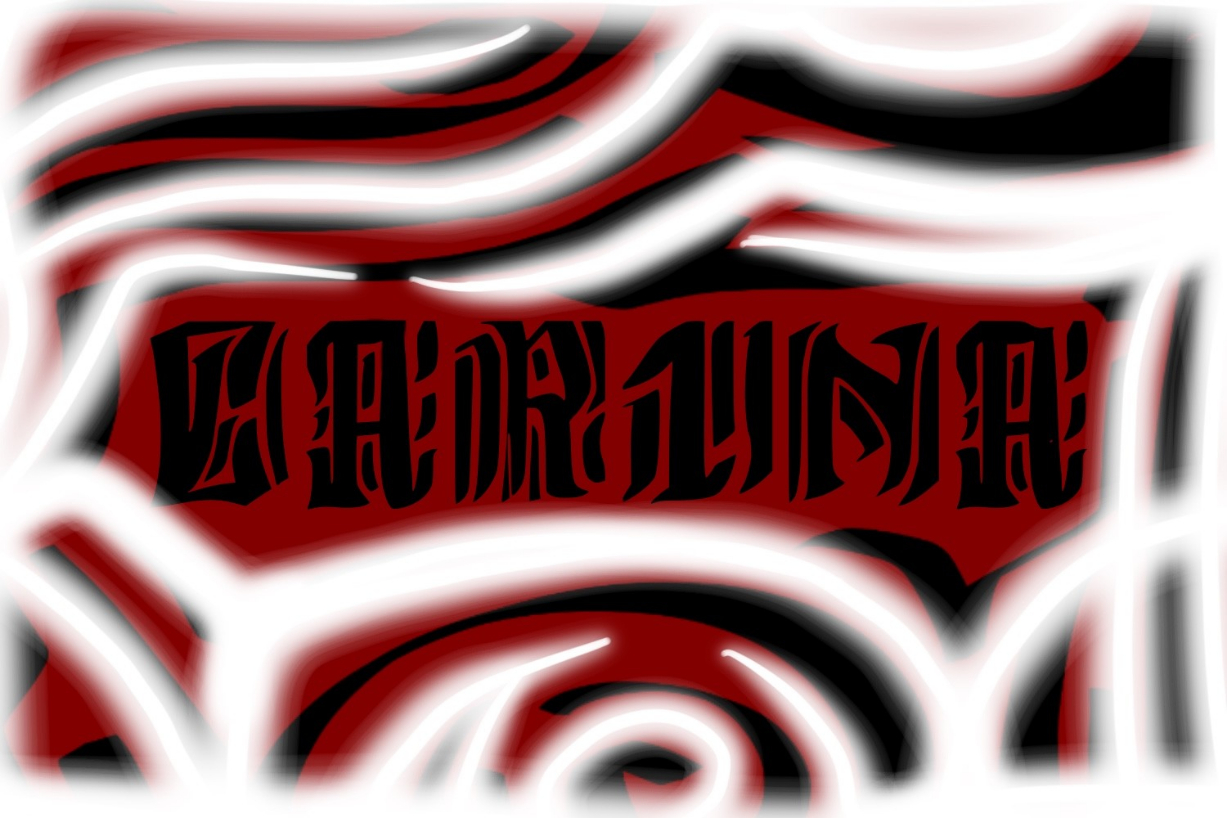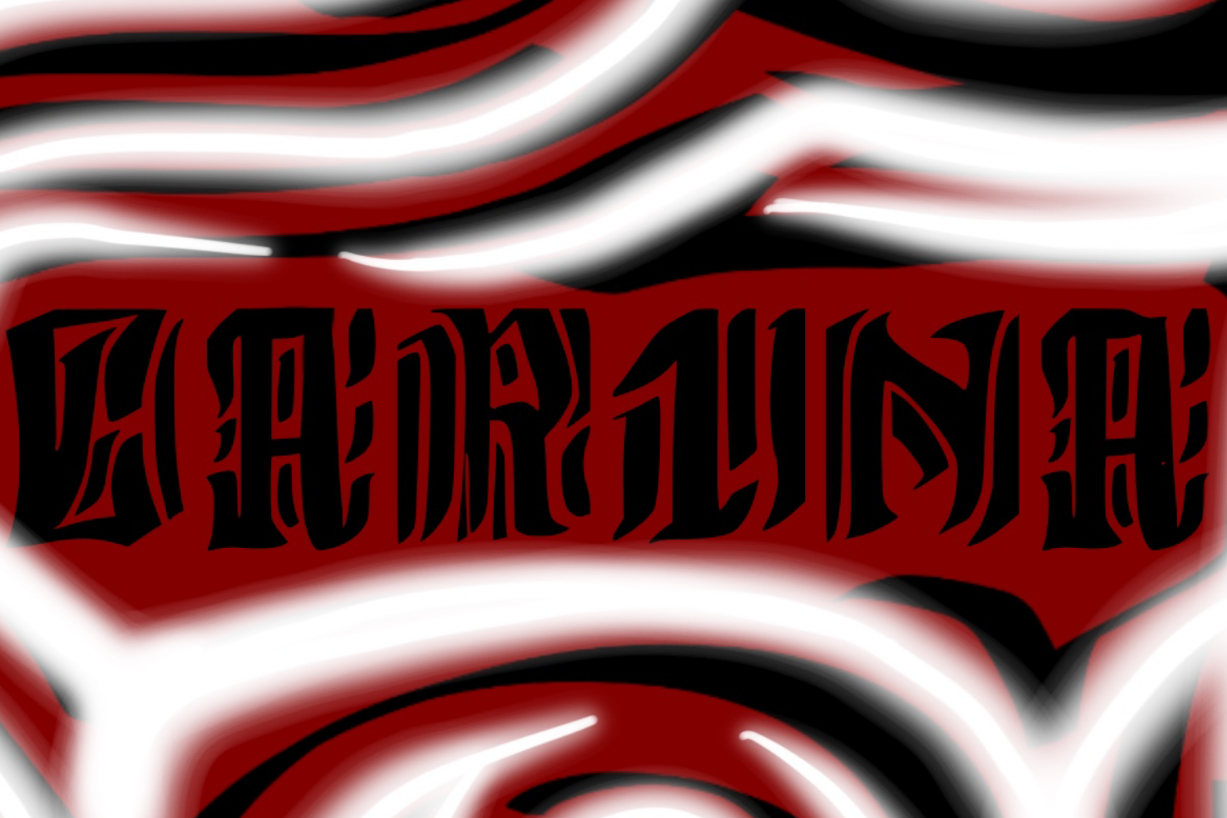
About Carina Font
Carina is a cool, bold, graffiti styled blackletter font. This font is imposing and features uniquely shaped letters, and as a result, it will easily match a wide range of creations that require a distinct touch.